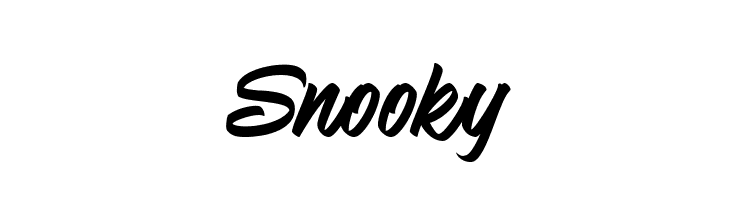
A bold, dynamic script font with a handwritten appearance.
A playful, handwritten font with a casual and dynamic style.
A playful, casual handwritten font with smooth curves and consistent strokes.